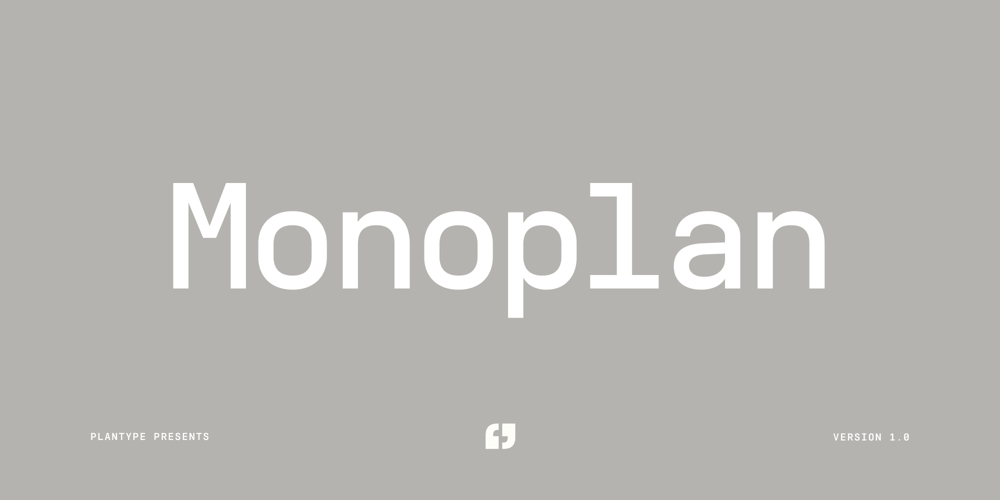
Monoplan Font Family was designed by Emin İmamoğlu and published by Plantype. Monoplan contains 5 styles and family package options. Monoplan is a versatile monospaced sans serif typeface. Minimal shapes and straight sides are definitive features of the typeface. Tables, headers, code blocks, signages or other small informative texts are the standard places where Monoplan shines. Different alternatives such as square dots, alternate /a /y /6 /9, coverage of 94 Latin languages, various Opentype features, and 5 styles expand the usage area of Monoplan.